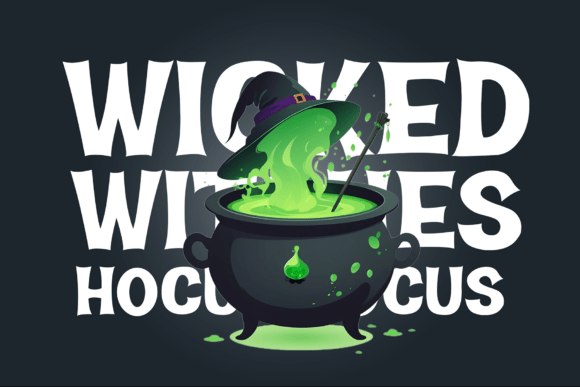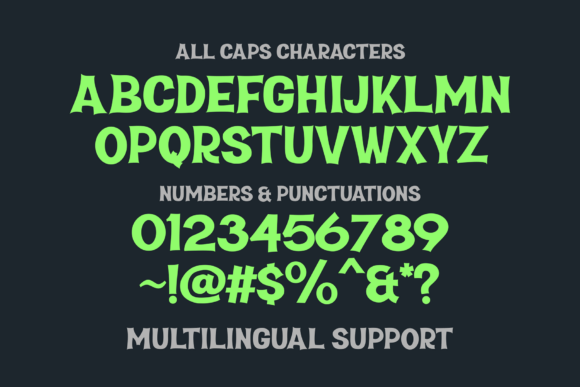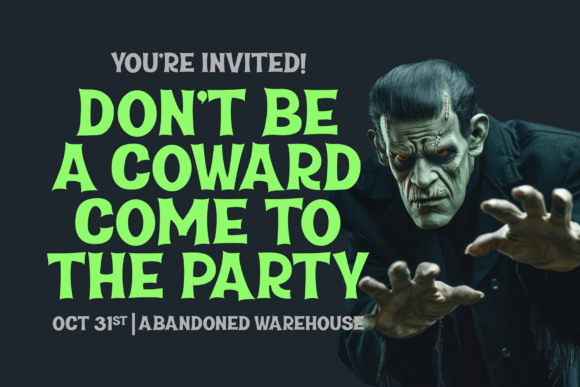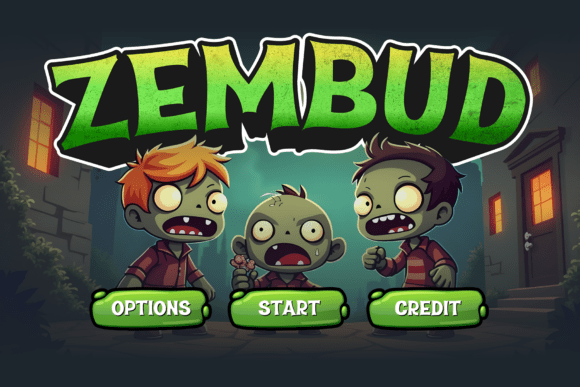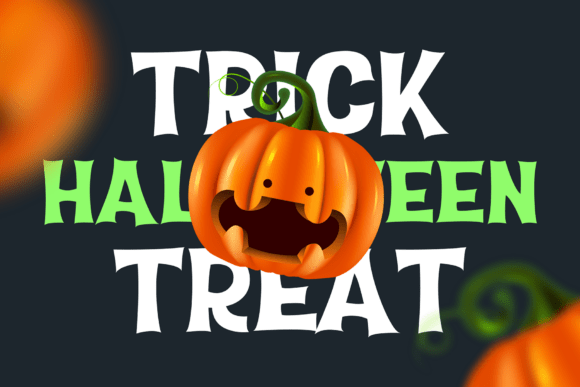
Cursed Night Font: Unleash the Horror in Your Halloween Designs
Are you looking to create chilling typography for your next Halloween project? Look no further than Cursed Night, a bold Halloween font designed to inject instant horror and spooky drama into your designs. This typeface is specifically crafted for Halloween posters, horror movie titles, party flyers, creepy book covers, and haunted house branding, making it the perfect addition to your creative arsenal.
The Essence of Horror in Typography
Cursed Night captures the eerie essence of October nights and ghostly tales with its sharp edges and jagged rhythm. The font’s bold and daring design is sure to send shivers down the spine of anyone who lays eyes on it. With its all-uppercase characters, Cursed Night delivers maximum impact, making it perfect for headlines, titles, and any other design element that needs to stand out.
Versatility and Multilingual Support
One of the standout features of Cursed Night is its multilingual support. This means that designers and crafters can use the font to create spooky and eerie designs that scream in multiple languages. Whether you’re working on a project for a global audience or simply want to add an extra layer of depth to your design, Cursed Night has got you covered.
Perfect for Digital and Print Designs
Cursed Night is designed to be versatile, making it perfect for both digital and print designs. Whether you’re working on a Halloween party flyer, a horror movie poster, or a creepy book cover, this font is sure to make your design stand out. Its bold and daring design ensures that your message is loud, dark, and unforgettable.
Use Cases for Cursed Night
So, what can you use Cursed Night for? The possibilities are endless, but here are a few ideas to get you started:
- Halloween posters and flyers
- Horror movie titles and taglines
- Creepy book covers and spine-tingling novels
- Haunted house branding and signage
- Spine-tingling party invitations and decorations
Why Choose Cursed Night?
So, why choose Cursed Night over other Halloween fonts? Here are just a few reasons:
- Unique and bold design: Cursed Night has a unique and bold design that’s sure to stand out in any design.
- Multilingual support: With multilingual support, you can create designs that scream in multiple languages.
- Versatility: Cursed Night is perfect for both digital and print designs, making it a versatile addition to your creative arsenal.
- Ease of use: With its simple and intuitive design, Cursed Night is easy to use and customize.
Tips and Tricks for Using Cursed Night
Here are a few tips and tricks for getting the most out of Cursed Night:
- Experiment with different colors: Cursed Night looks great in a variety of colors, so don’t be afraid to experiment and find the perfect hue for your design.
- Use it sparingly: While Cursed Night is bold and daring, it can be overwhelming if used too much. Use it sparingly to create maximum impact.
- Pair it with other fonts: Cursed Night looks great when paired with other fonts, so don’t be afraid to experiment and find the perfect combination for your design.
In conclusion, Cursed Night is a bold Halloween font that’s perfect for designers and crafters looking to create chilling typography for their next Halloween project. With its sharp edges, jagged rhythm, and multilingual support, Cursed Night is sure to inject instant horror and spooky drama into your designs. Whether you’re working on a Halloween poster, horror movie title, or creepy book cover, Cursed Night is the perfect addition to your creative arsenal.